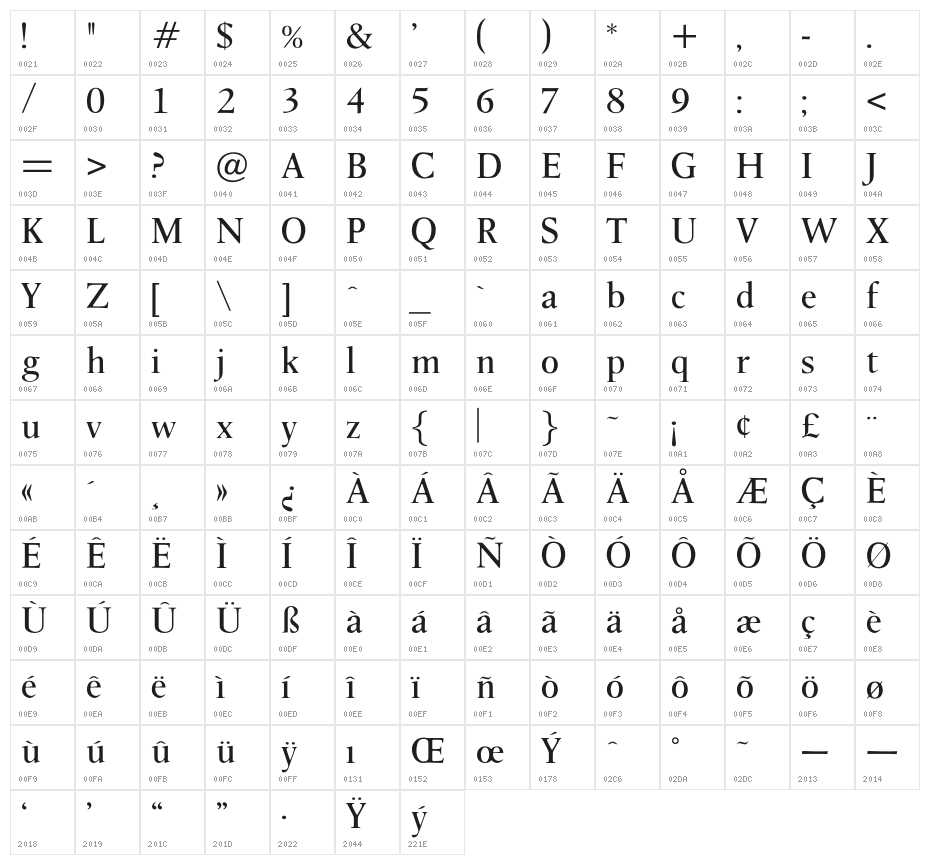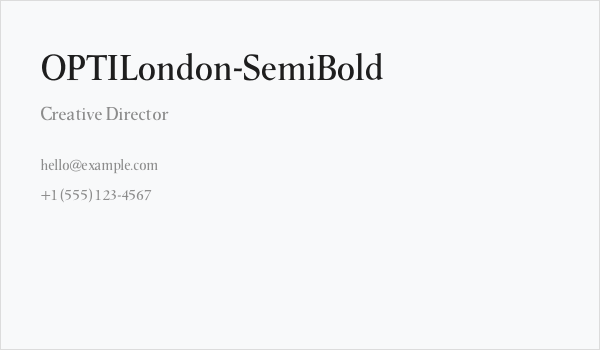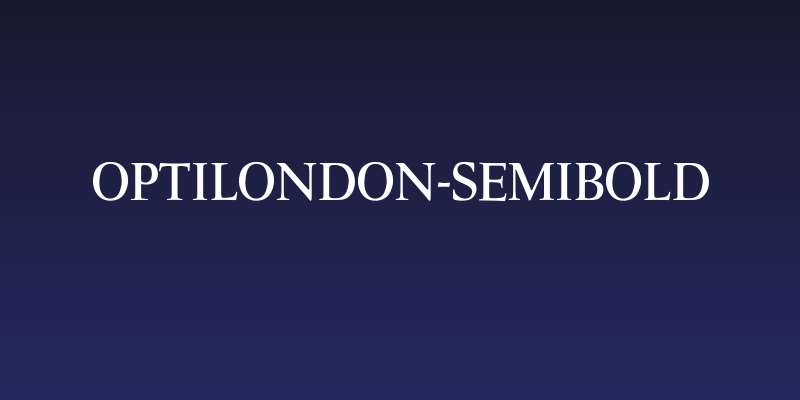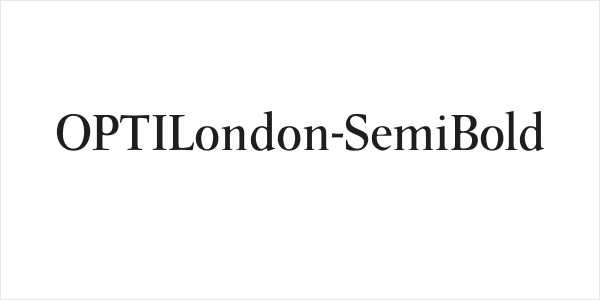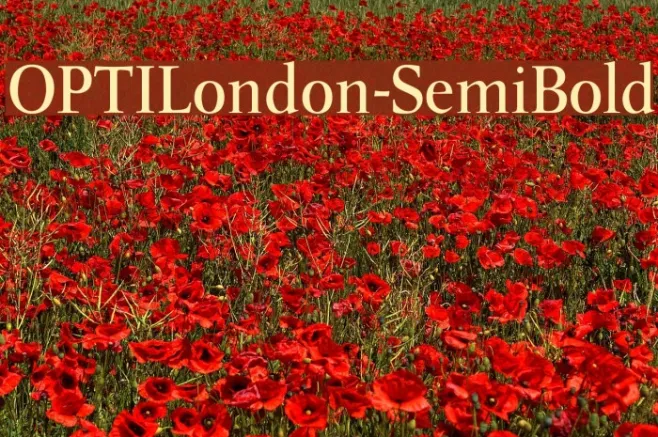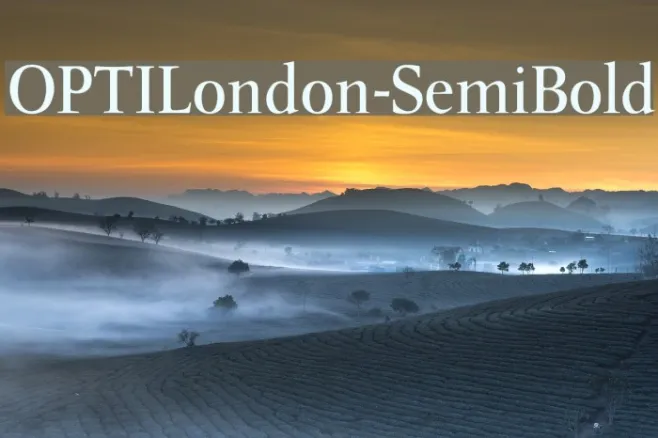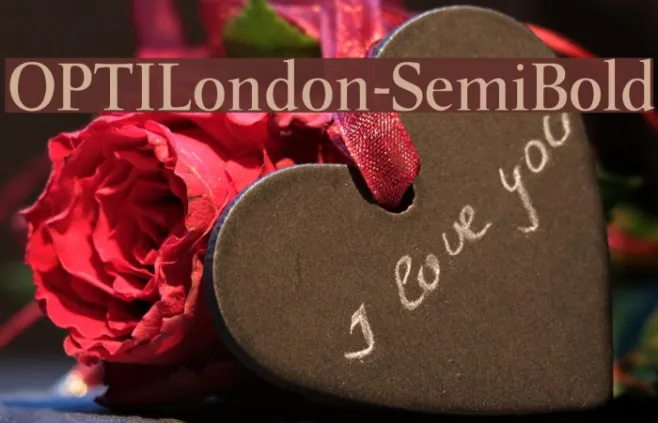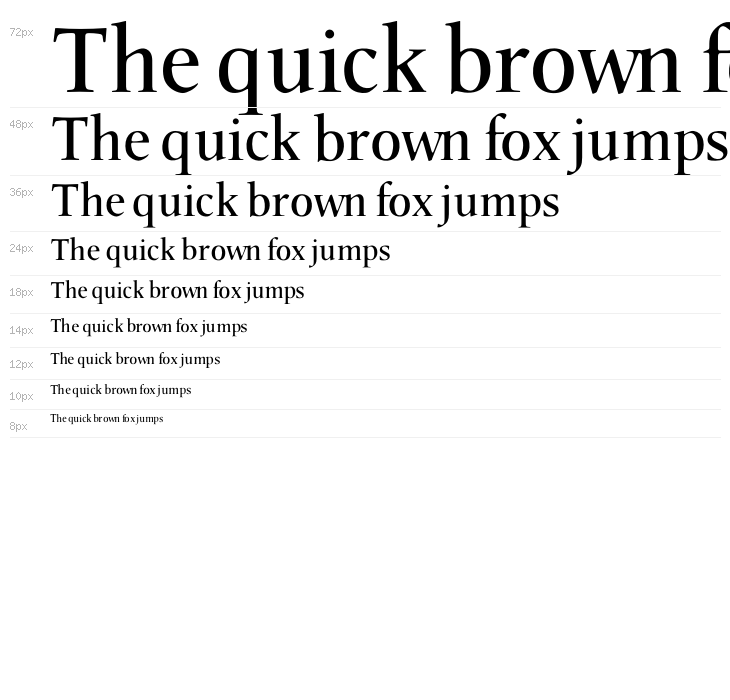
OPTILondon-SemiBold Font
OPTILondon-SemiBold Description
This font exhibits a classic serif style with a semi-bold weight, offering a balanced and elegant appearance. The characters are well-defined with moderate contrast between thick and thin strokes, enhancing readability while maintaining a sophisticated look. The uppercase letters are slightly taller than average, providing a commanding presence, while the lowercase letters are proportionate and harmonious. The numerals are clear and distinct, making them suitable for both text and numerical data. Special characters are crafted with precision, ensuring consistency across all glyphs. This font is versatile, suitable for both digital and print media, and can be used effectively in various design contexts.
| Proposed Projects | Ideal for editorial design, book covers, formal invitations, and branding materials that require a touch of elegance. |